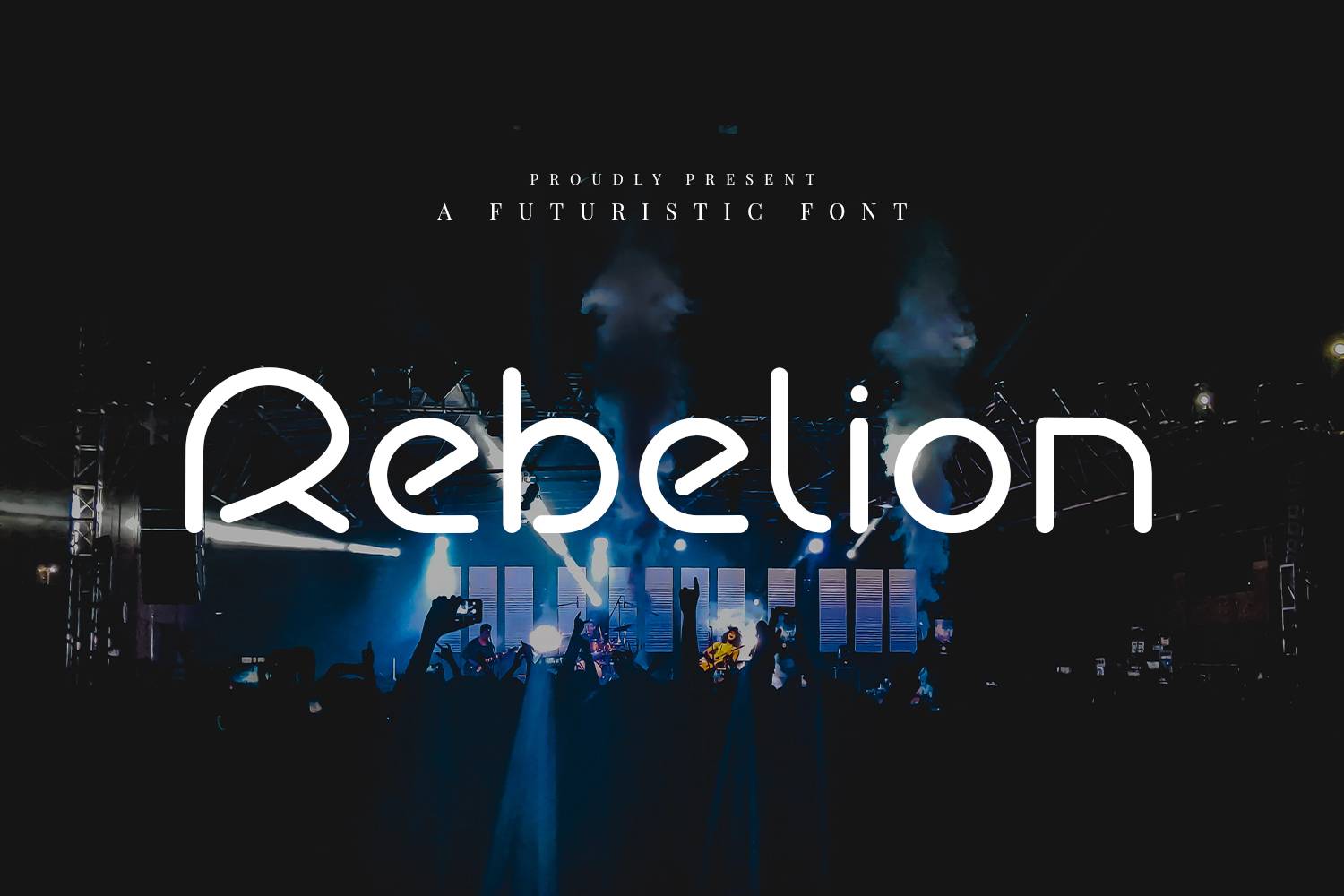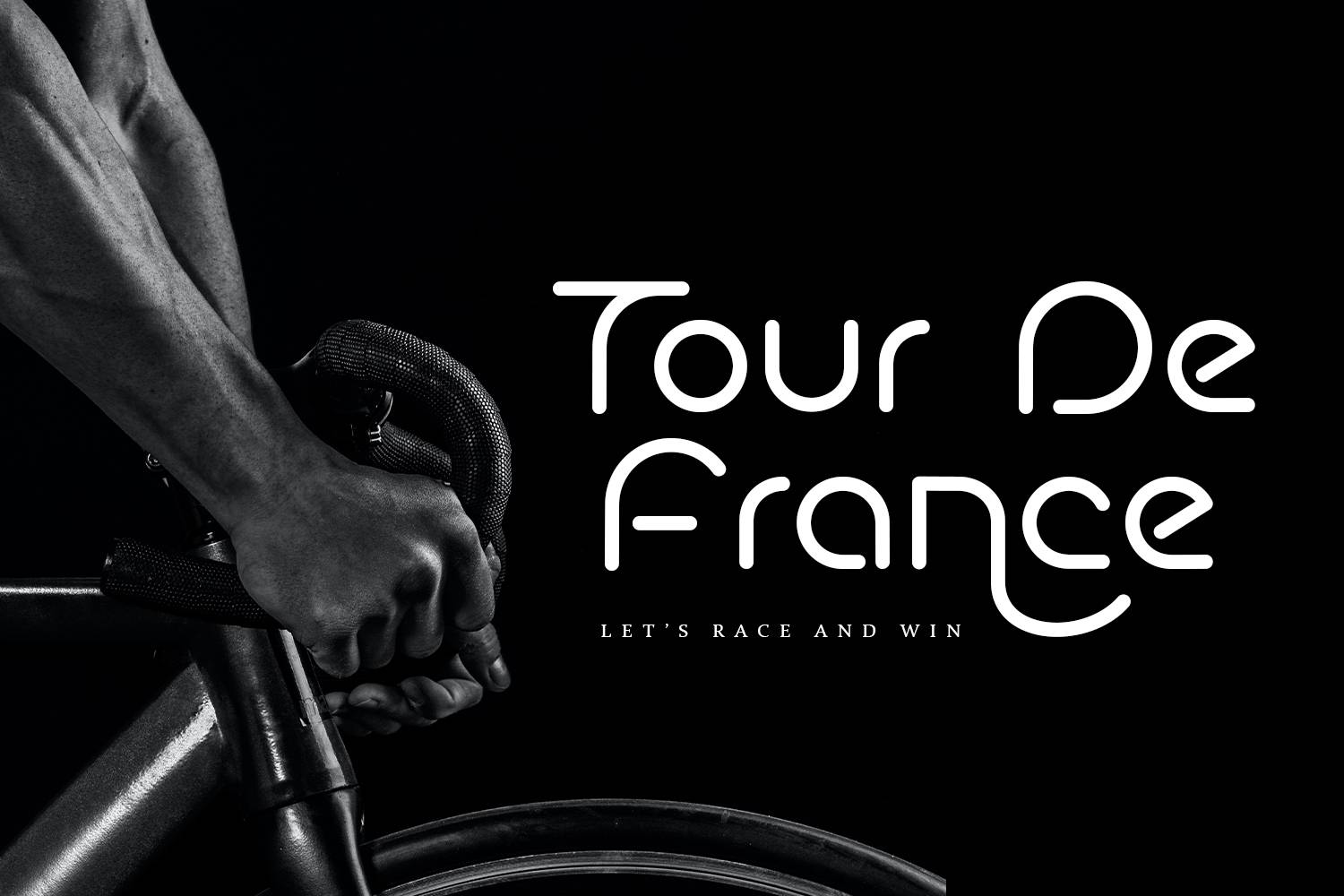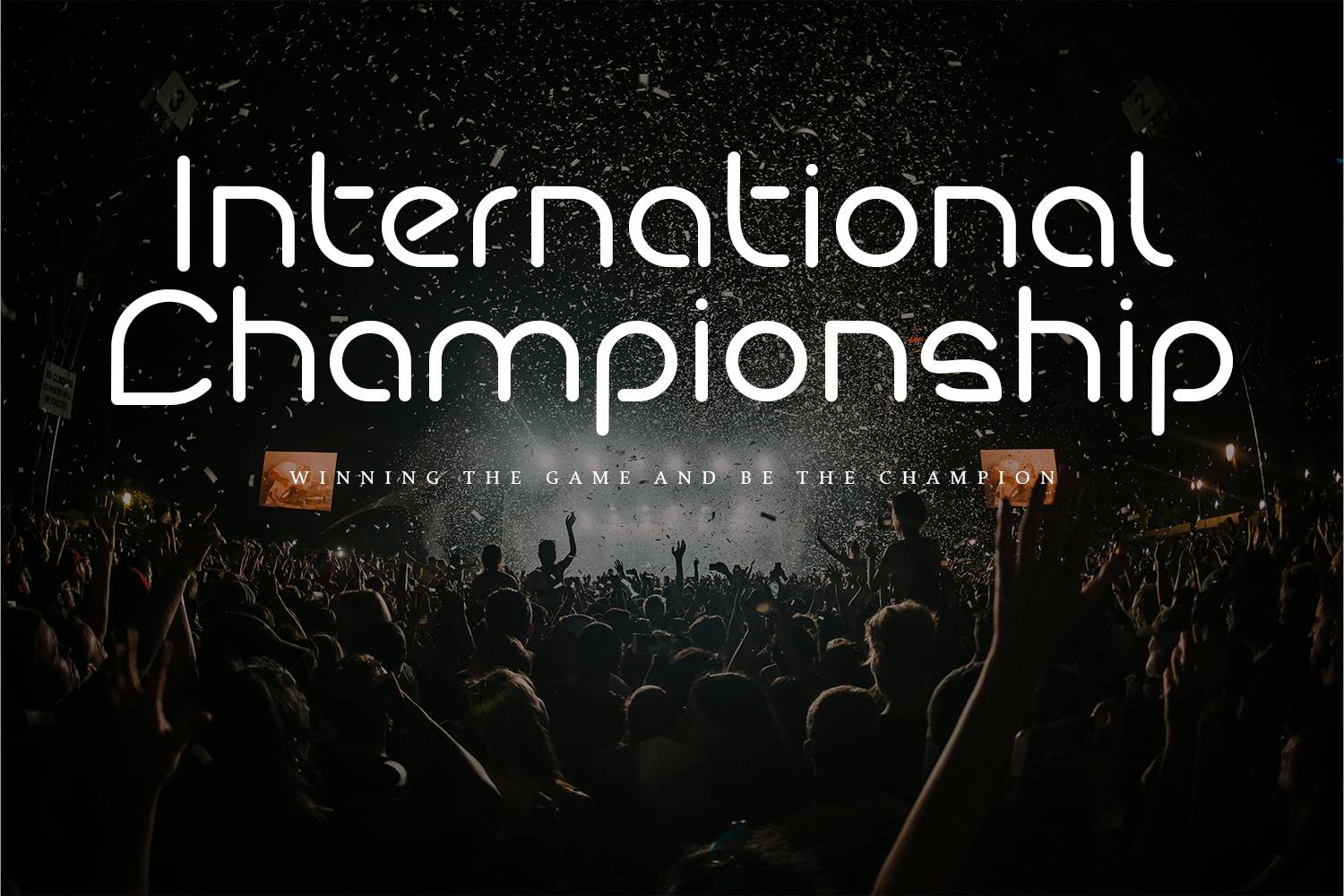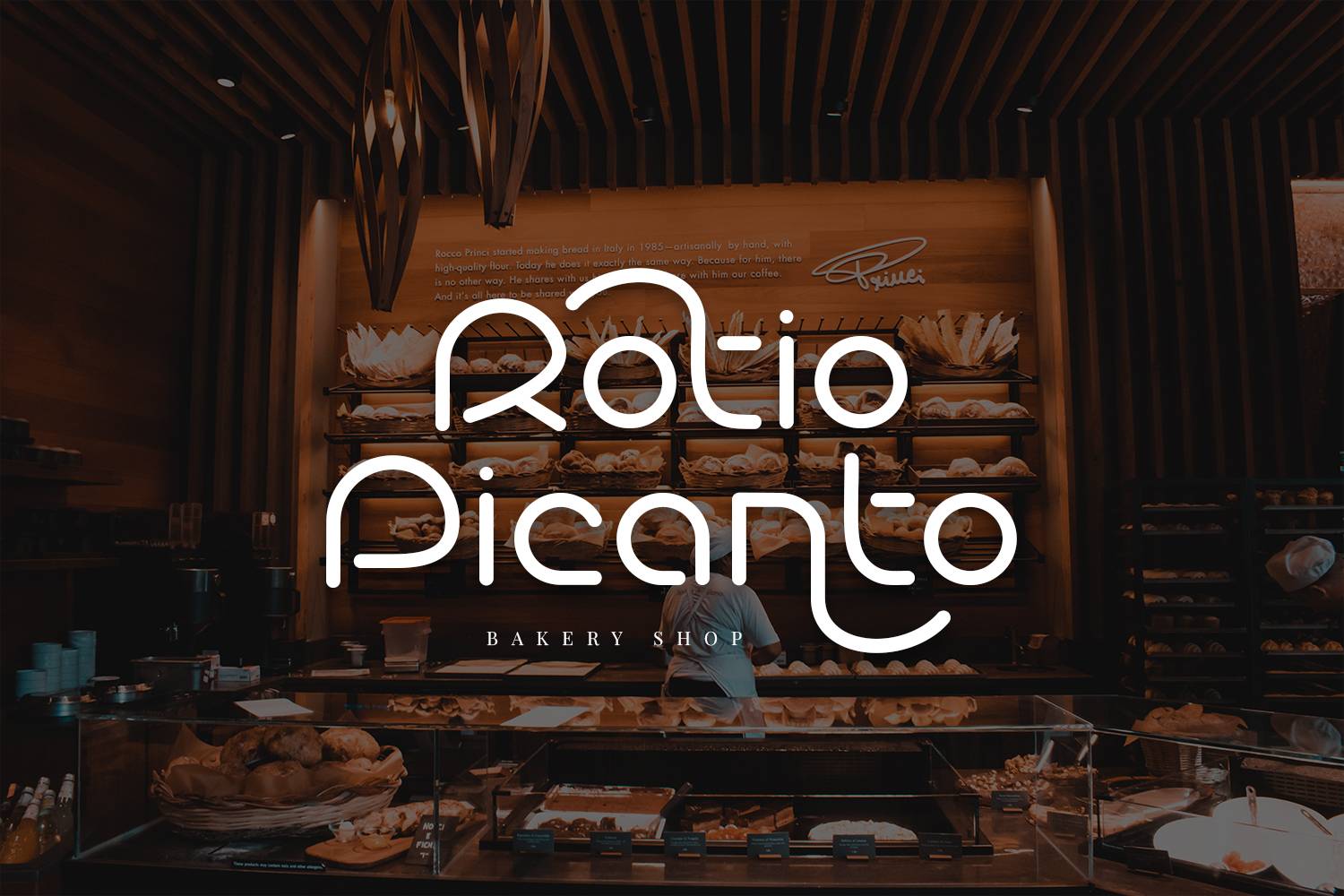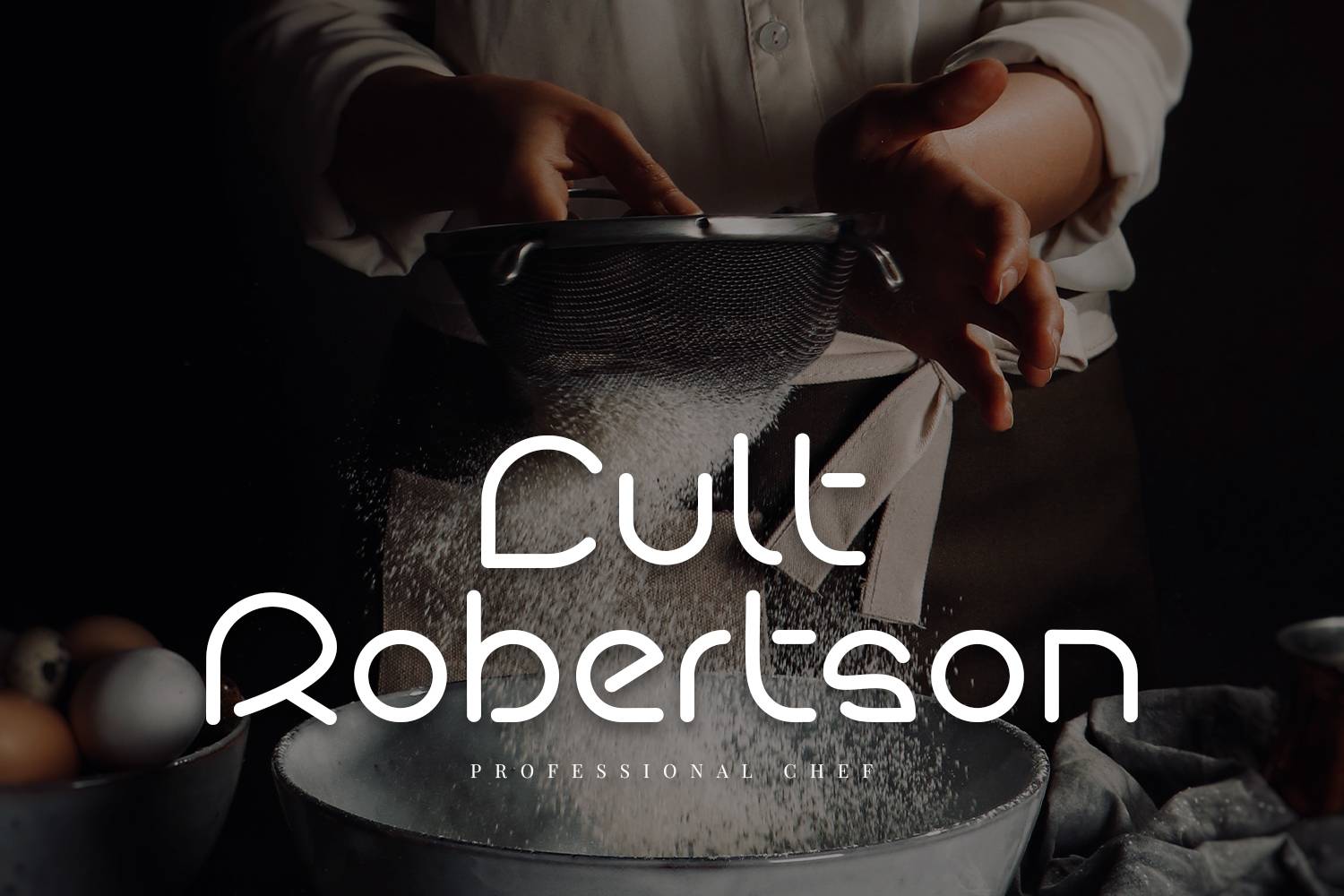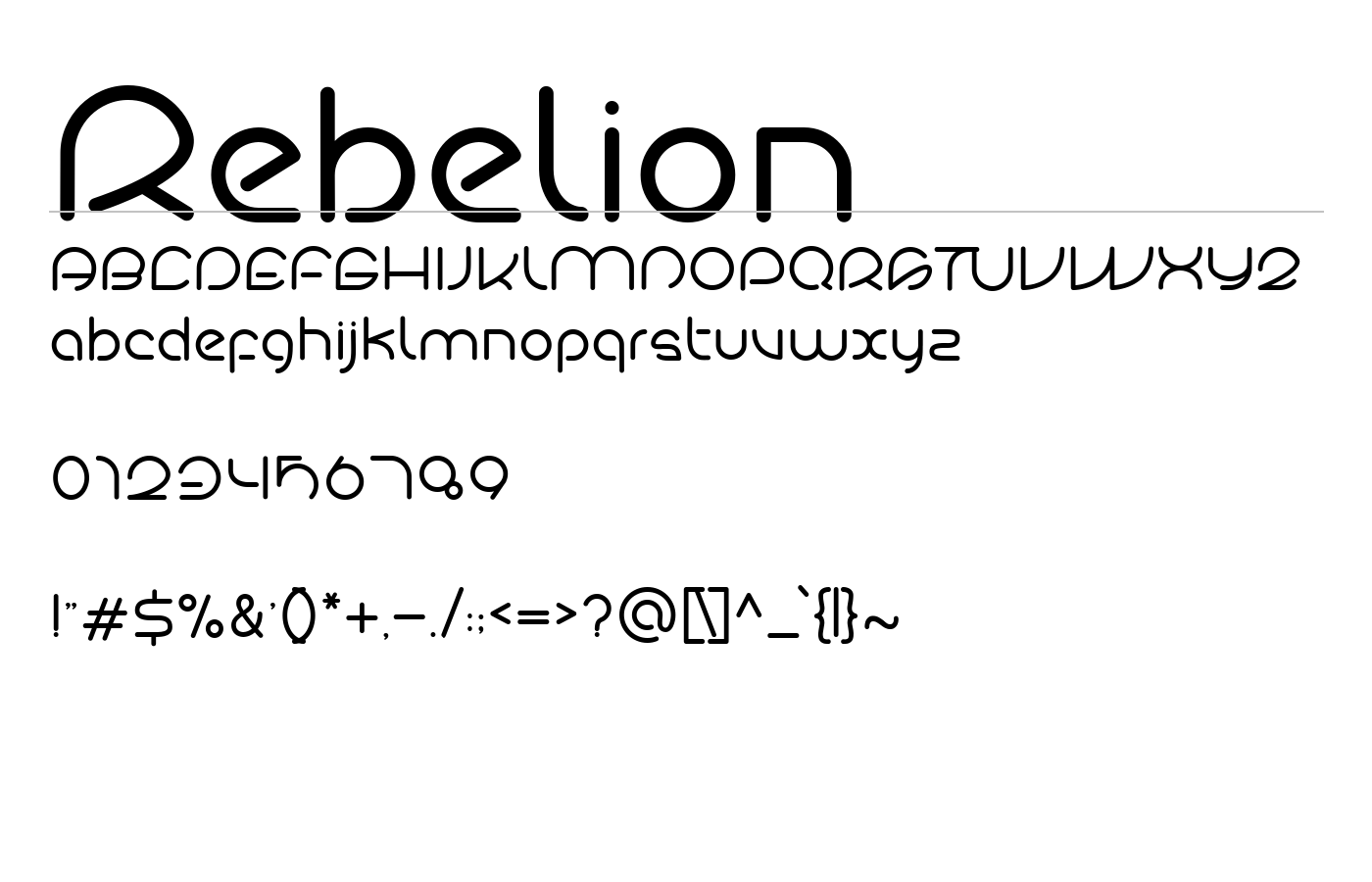
Rebelion is a modern, geometric sans serif font with a sleek and futuristic feel, featuring rounded terminals and a consistent light weight that gives it an elegant yet approachable character. Its unique letterforms with smooth curves and distinct shapes make it ideal for contemporary branding, editorial headlines, and creative digital projects that seek a stylish and innovative look. This font works best in display sizes where its clean lines and distinctive personality can stand out.
Rebelion Font